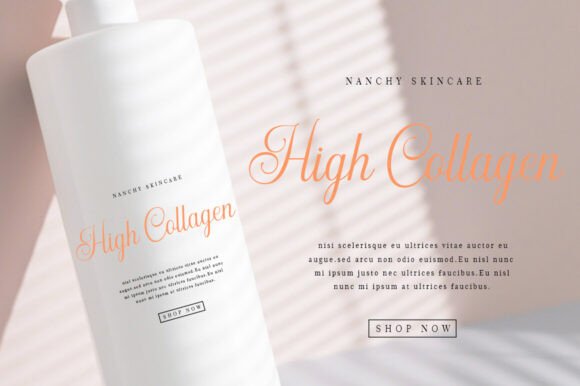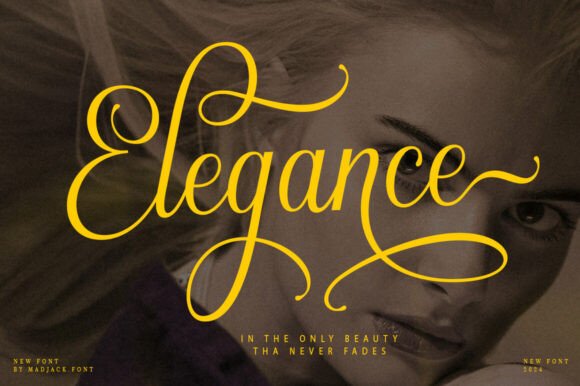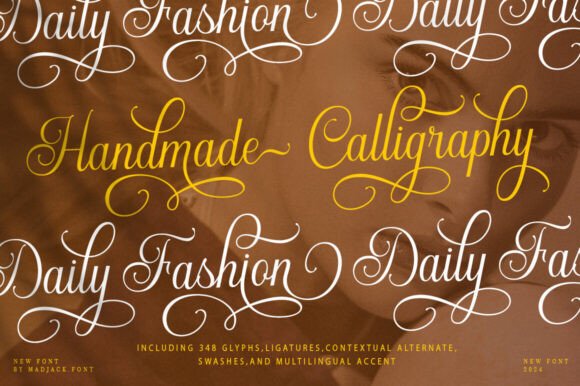
Introduction to Masterline Calligraphy Font
Have you ever found yourself stuck in a creative rut, desperately searching for the perfect font to bring your project to life? I know I have. As a designer, there’s nothing quite like the thrill of discovering a new font that perfectly captures the essence of your vision. For me, that moment came when I stumbled upon the Masterline Calligraphy Font. Its elegant, high-quality design and versatility made it an instant favorite, and I knew I had to share it with fellow designers.
Whether you’re working on a branding project, designing a wedding invitation, or creating a beautiful quote, Masterline Calligraphy Font is a valuable resource that can elevate your design to the next level. Its transparent background and free download make it an ideal design resource for any creative project. With its beautiful swashes and modern calligraphy design, Masterline Calligraphy Font is sure to become your go-to font for all your design needs.
Key Features of Masterline Calligraphy Font
- High-quality, hand-crafted design ideal for creative projects and design resources.
- Unique characteristics include elegant, cursive script and refined flourishes, perfect for adding a touch of sophistication to any design project.
Honest Review: Masterline Calligraphy Font
I recently had the chance to work with the Masterline Calligraphy Font, and I must say it’s a great addition to my design resources. The font is a high-quality, elegant script that adds a touch of sophistication to any creative project.
One of the things that works well with this font is its versatility. It’s perfect for titles, headings, and even body text, making it a great all-around choice for designers. The font is also available for free download, which is a big plus in my book.
- ✨ High-quality, elegant script
- ✨ Versatile and suitable for various design applications
- ✨ Includes a transparent background option, making it easy to use on any background
However, there are a few limitations to keep in mind. The font is not as extensive as some other calligraphy fonts on the market, and it may not have the exact style or flair you’re looking for. Additionally, some users may find the font a bit too ornate or over-the-top.
Overall, I’m impressed with the Masterline Calligraphy Font, and I think it’s a great choice for designers who want a high-quality, elegant script for their creative projects.
Tips for Getting the Most Out of Masterline Calligraphy Font
To get the most out of Masterline Calligraphy Font, experiment with different font sizes, colors, and combinations to create unique and eye-catching designs. This font is perfect for creative projects, such as invitations, posters, and social media graphics.
Masterline Calligraphy Font is commonly used in wedding invitations, baby shower invitations, and other special occasion graphics. Its high quality and transparent background make it a great design resource for any project that requires a touch of elegance and sophistication.